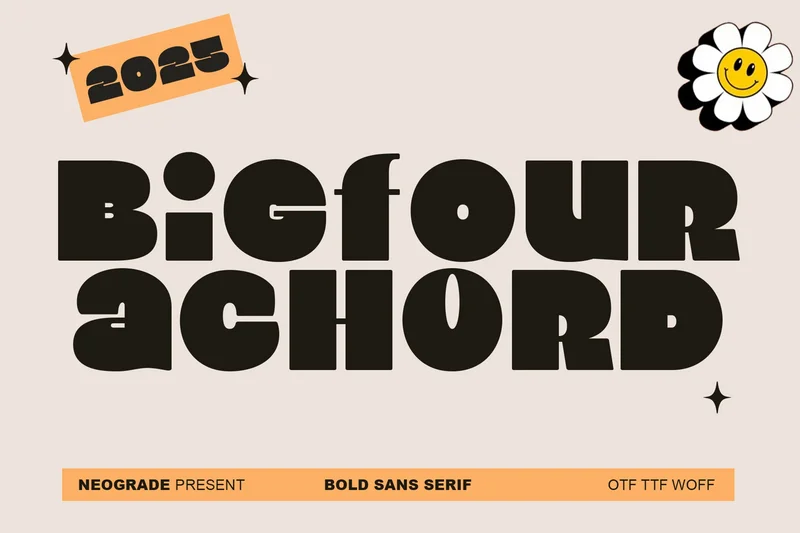
Bigfour Achord
Bigfour Achord is a display font with a truly unique personality—fun, bold, and full of character. Its design blends friendly rounded shapes with boxy, extra-thick straight lines, creating a striking contrast that makes every letter look strong and attention-grabbing.
This font is crafted to bring positive energy and a playful vibe while maintaining a sense of firmness. Its heavy and solid character makes it the perfect choice for headlines, posters, logos, packaging, and branding projects that aim to stand out and capture attention at first glance.
With its distinctive style, Bigfour Achord delivers a modern yet fun aesthetic, making it suitable for creative projects in fashion, food & beverage, entertainment, technology, and promotional events. Every detail of the letters is designed to create a maximum visual impact, ensuring that your message looks expressive, confident, and unforgettable.
If you’re looking for a display font that’s bold, strong, yet still approachable, Bigfour Achord is the perfect fit.